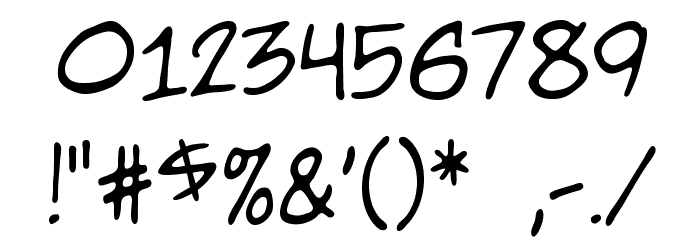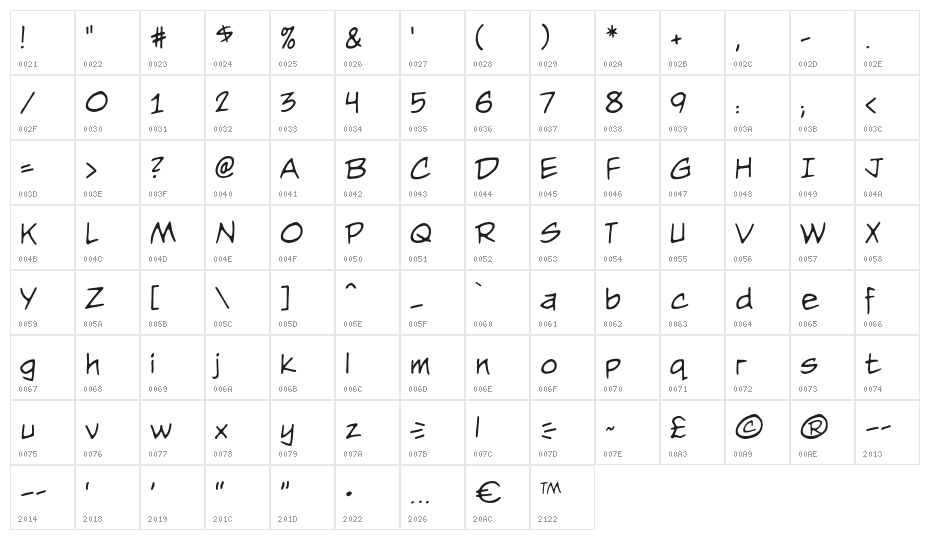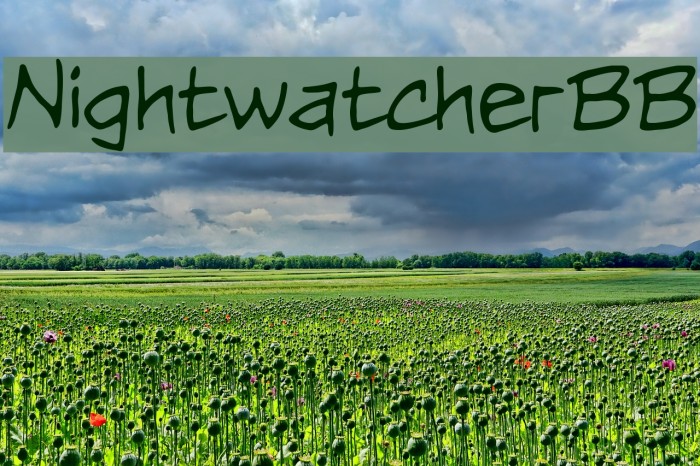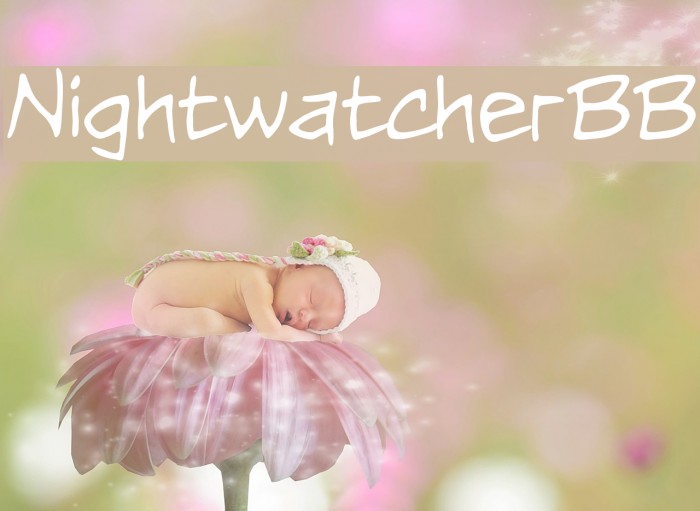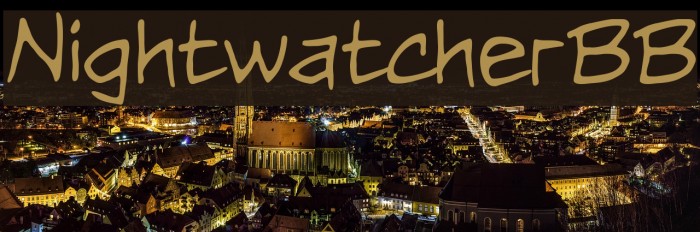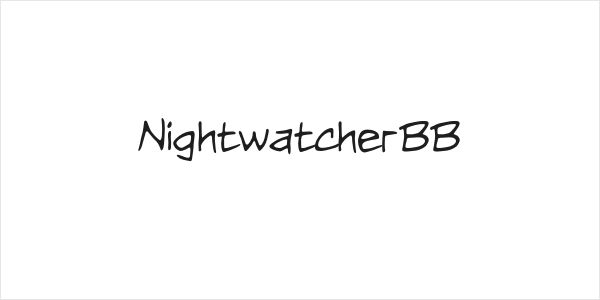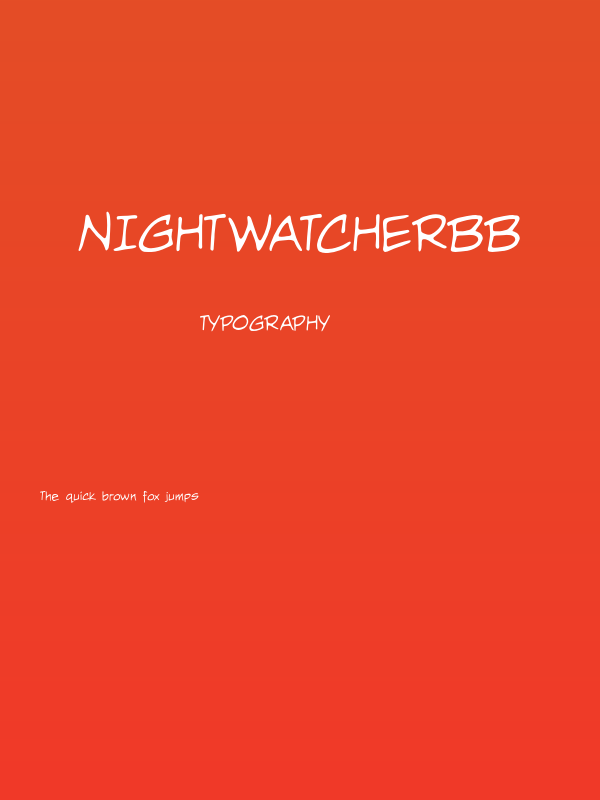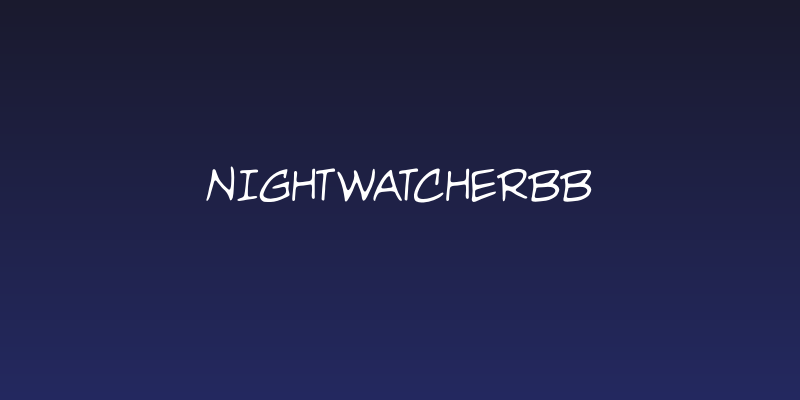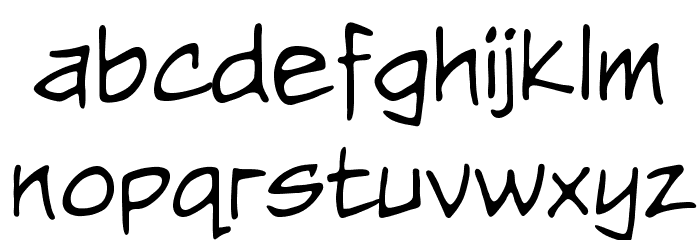
NightwatcherBB Font
NightwatcherBB Description
This font exudes a casual and playful handwritten style, characterized by its irregular strokes and slightly tilted characters. The letters have a natural, flowing appearance, reminiscent of a quick, informal note. The uppercase and lowercase letters maintain a consistent style, with rounded edges and a slight slant that adds to the font's dynamic feel. The numerals and special characters are crafted with the same playful energy, ensuring a cohesive look across all text elements. This font's unique charm lies in its ability to convey a sense of spontaneity and personal touch, making it ideal for projects that require a friendly and approachable aesthetic.
| Proposed Projects | Ideal for greeting cards, personal notes, informal invitations, and playful branding projects. |